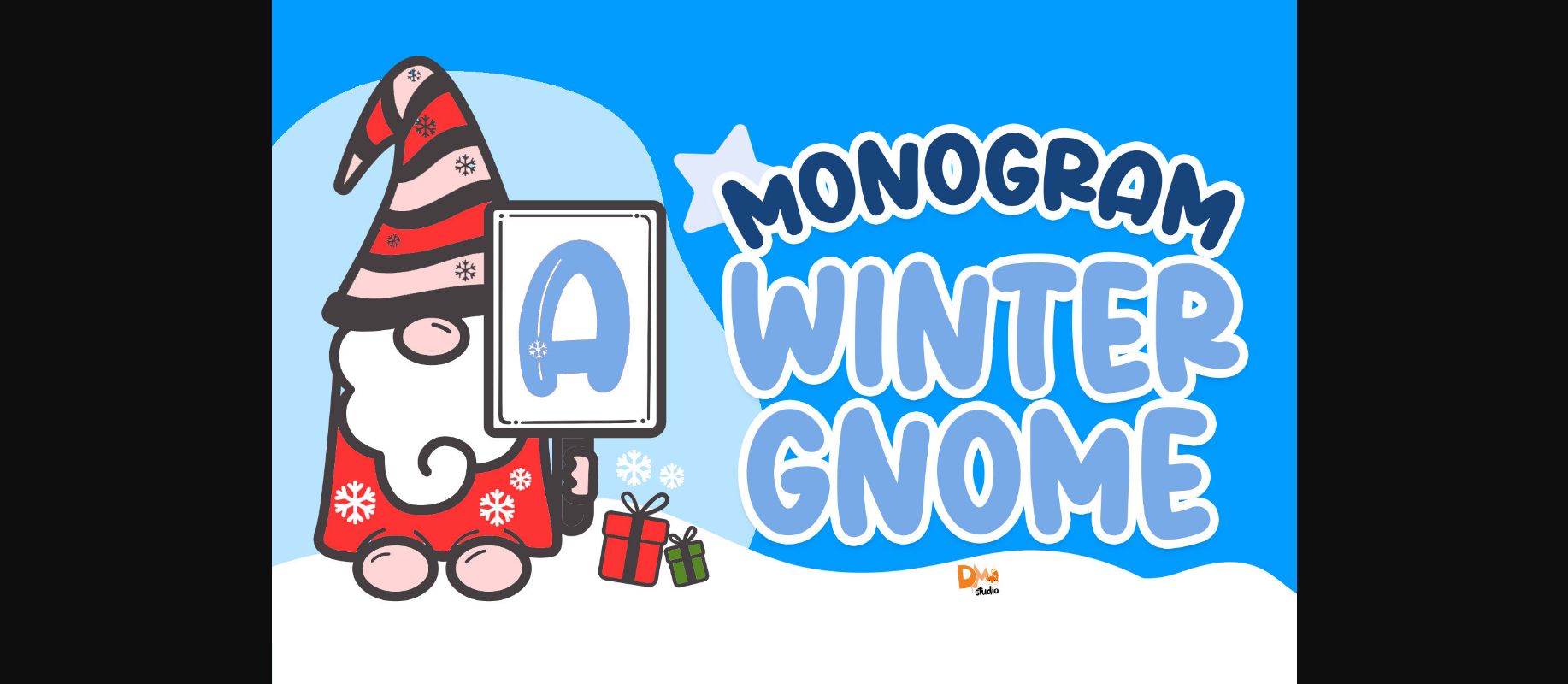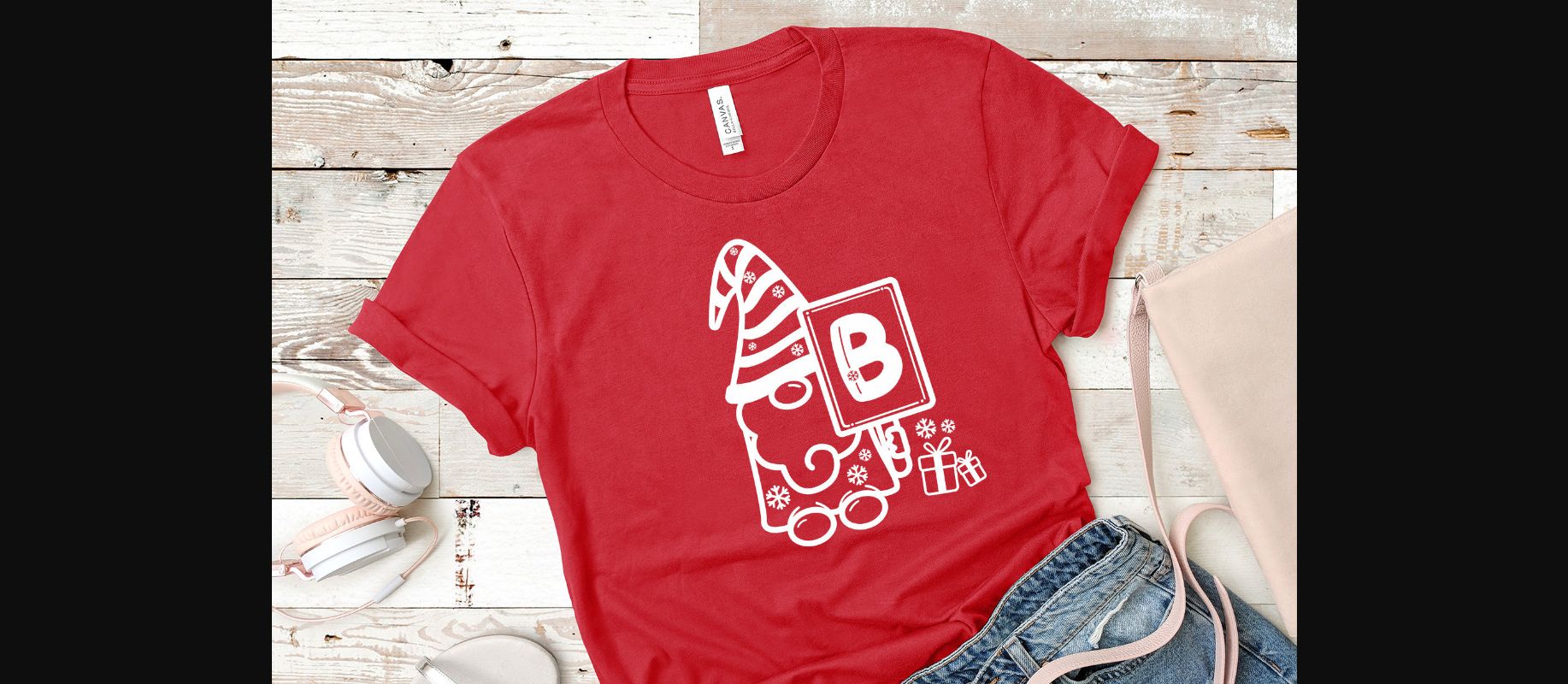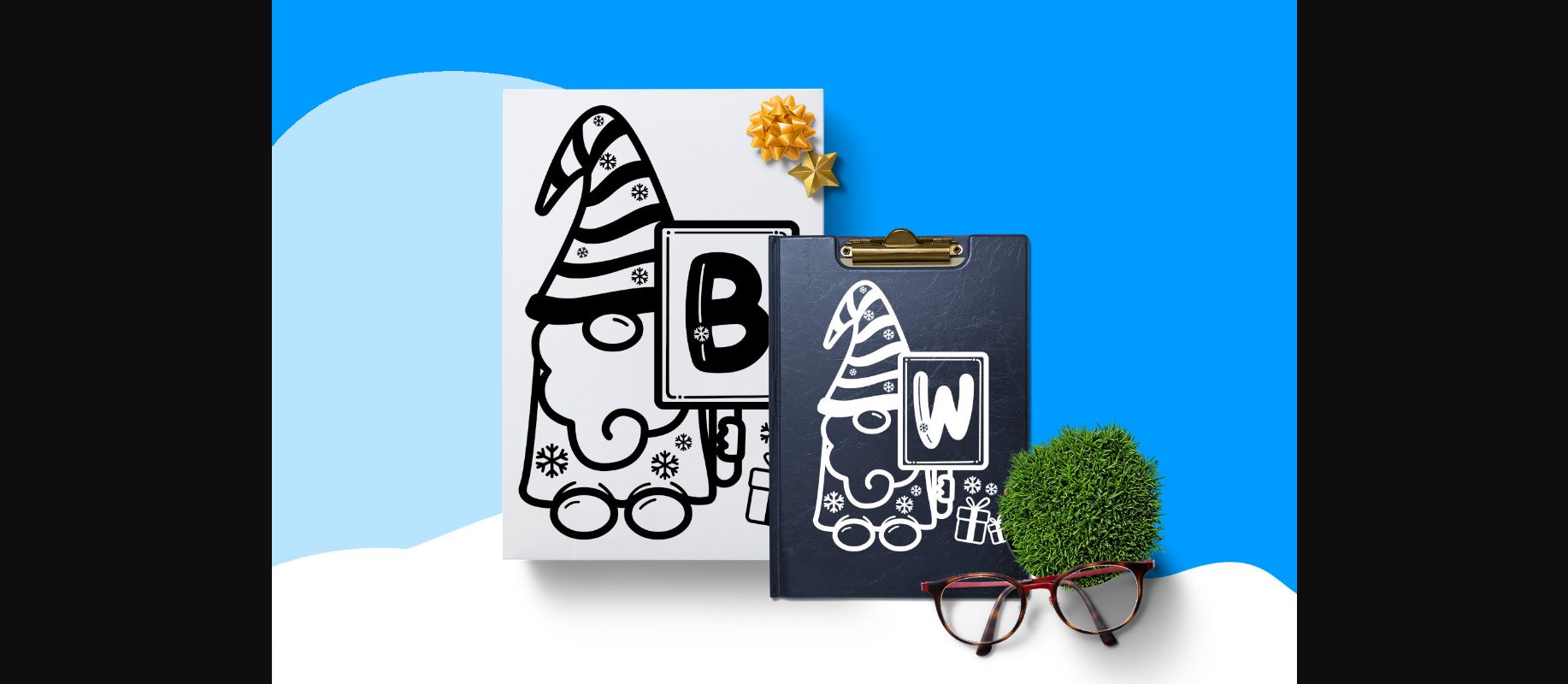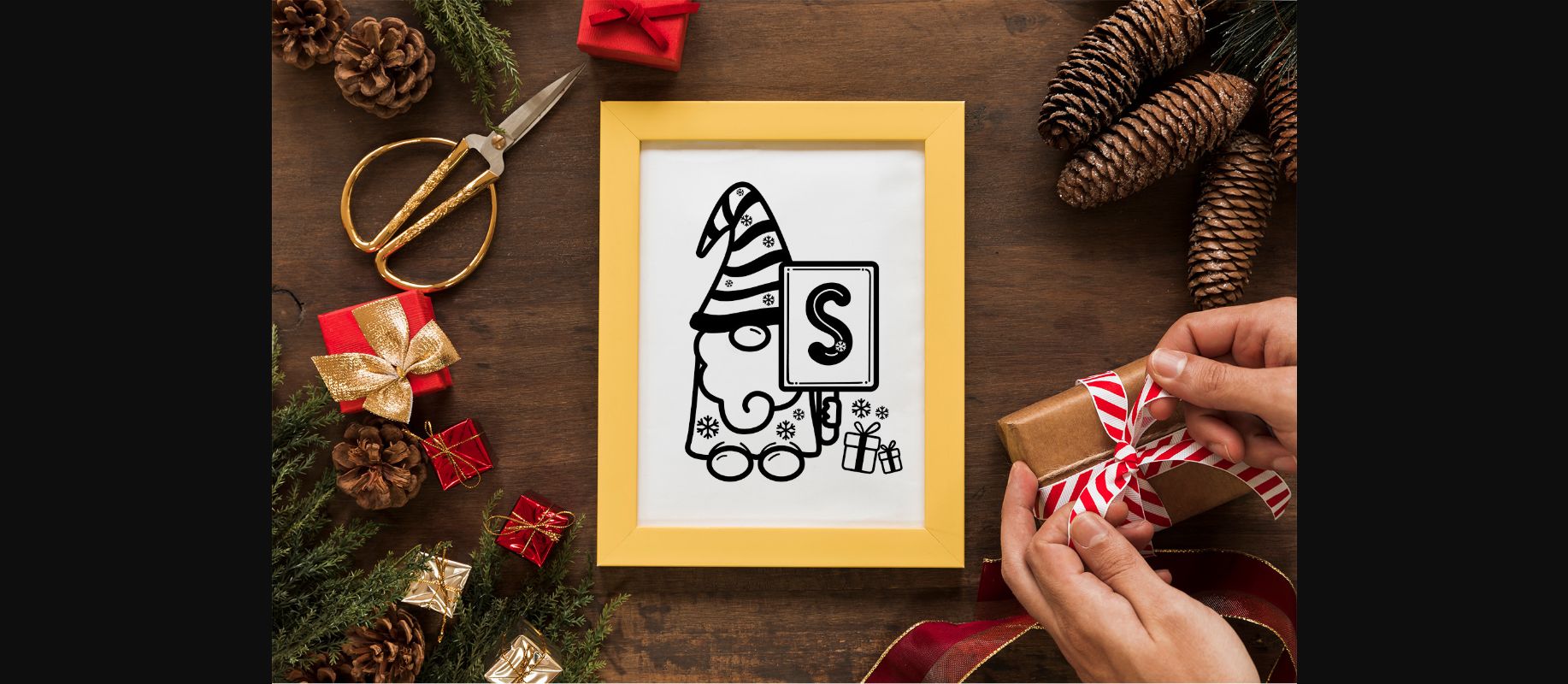
About Monogram Winter Gnome Font
Monogram Winter Gnome is a cute and incredibly whimsical decorative. Whether you use it for cartoon related designs, children games or just any creation that requires a lovely touch, this font will be an amazing choice.